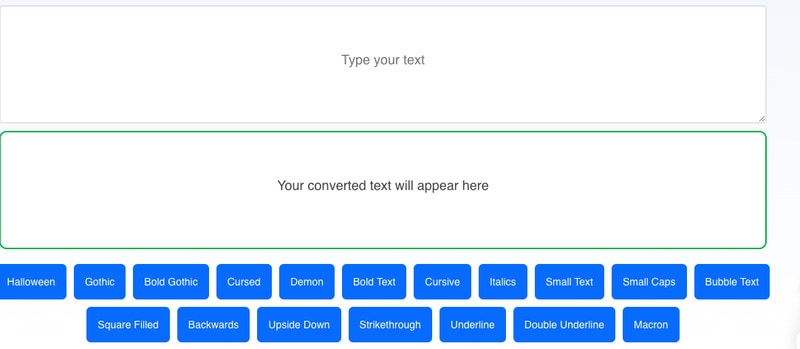
The Gothic Font Generator is an online tool that enables users to convert standard text into stylized Gothic script. Primarily used for visual distinction on social media platforms, gaming profiles, and digital branding, the tool transforms input into Unicode-compatible characters that resemble ornate Gothic lettering.
Once generated, users can easily copy and paste the text into their preferred digital platforms. This functionality allows for creative customization without requiring specialized design skills or software. The generator operates entirely online and typically requires no sign-in, offering instant results. From a business standpoint, such tools can support niche marketing strategies, personalized branding, and user engagement in digital spaces where visual style plays a key role in standing out. It also serves content creators looking for fast, stylized typography for titles, banners, and posts.
Gothic Font Generator Creates Copyable Gothic-Style Unicode Text
Stylized Text Generators — Online text generators that offer stylized fonts are revolutionizing content personalization in digital communications, particularly on social media and gaming platforms.
Unicode-compatibility — The rise of text tools producing Unicode-compatible characters facilitates seamless integration across multiple digital platforms, enhancing consistency in user interaction.
Design Democratization — Tools that provide immediate stylized typography without requiring technical skills empower users and ease the content creation process for a wider audience.
Digital Marketing — Digital marketing efforts benefit greatly from tools that allow brands to easily implement unique and eye-catching typographic styles, aiding in visual differentiation.
Social Media — Social media platforms are increasingly driven by visual creativity, with stylized text tools enabling users to express individuality and capture attention more effectively.
Gaming — Gaming communities value aesthetic personalization tools which enhance user profiles and promote identity expression through distinct text and styling options.